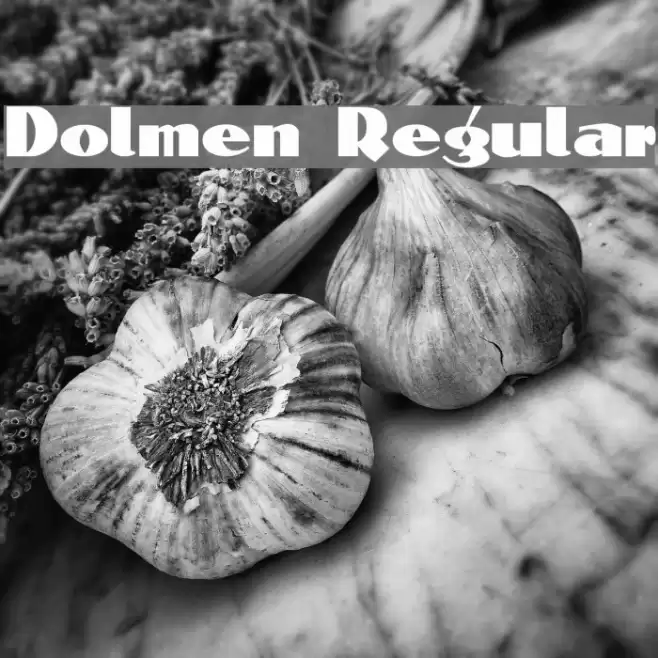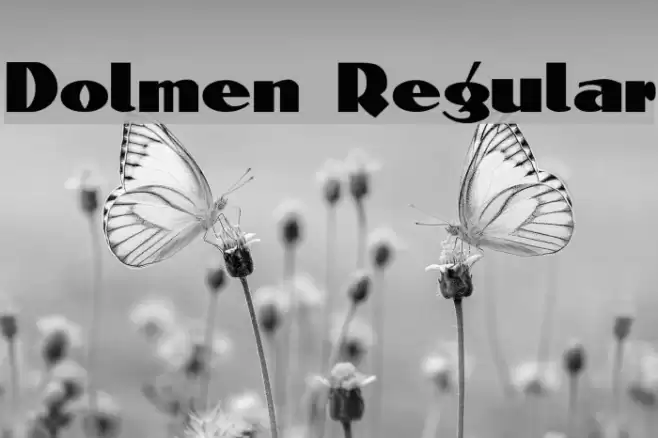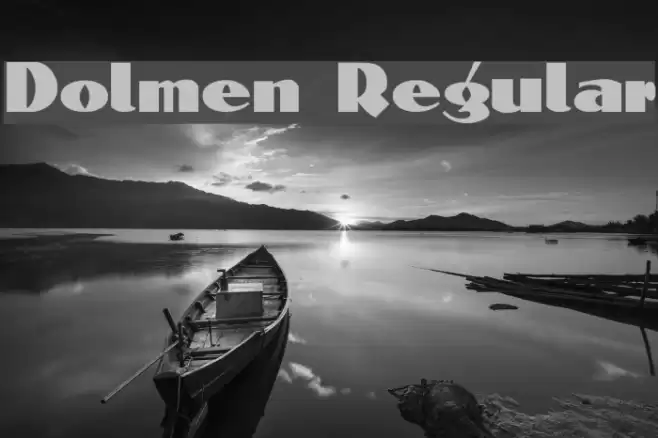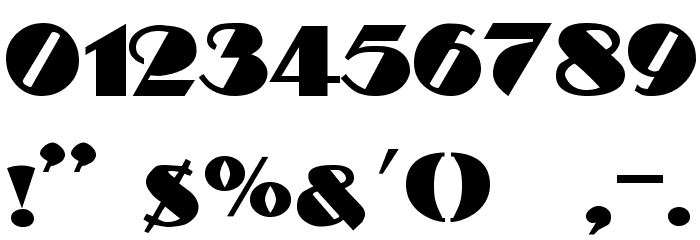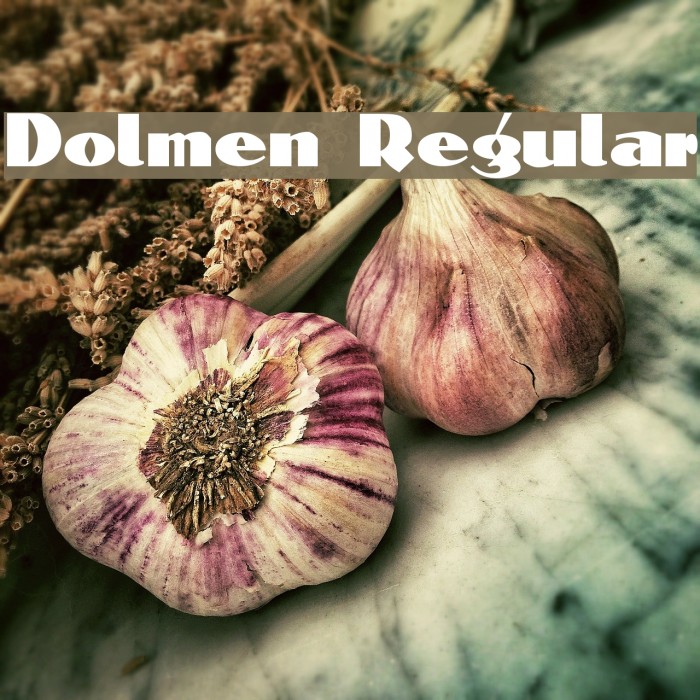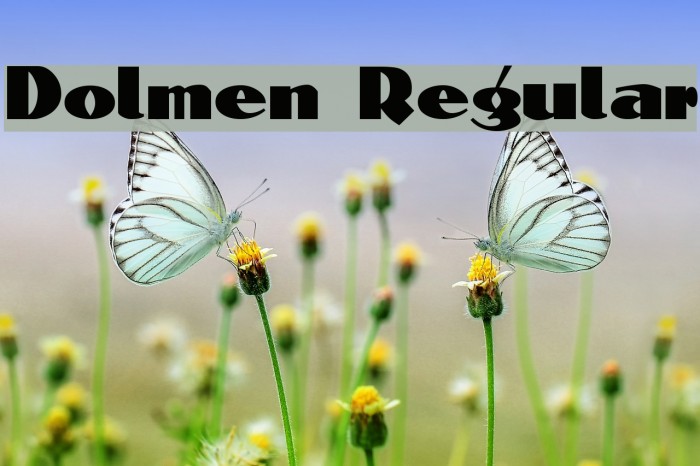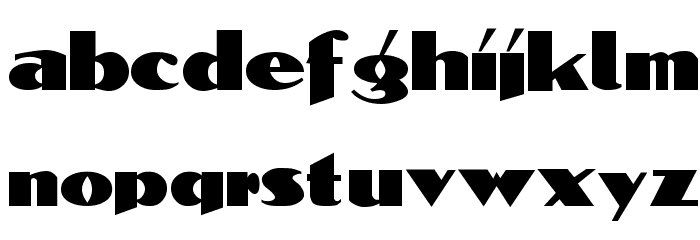
Dolmen Regular Font
Dolmen Regular Description
This font features a bold and striking design with sharp, angular edges and a geometric style. The uppercase letters are particularly prominent, with a strong presence that commands attention. The lowercase letters maintain the same boldness, offering a cohesive look throughout. Numbers and special characters are equally bold, ensuring consistency across all text elements. The overall appearance is modern and impactful, making it suitable for projects that require a strong visual statement.
A bold, geometric font with sharp, angular edges from Uncategorized fonts.
- Proposed Projects: Ideal for branding, posters, headlines, and any design requiring a bold statement.